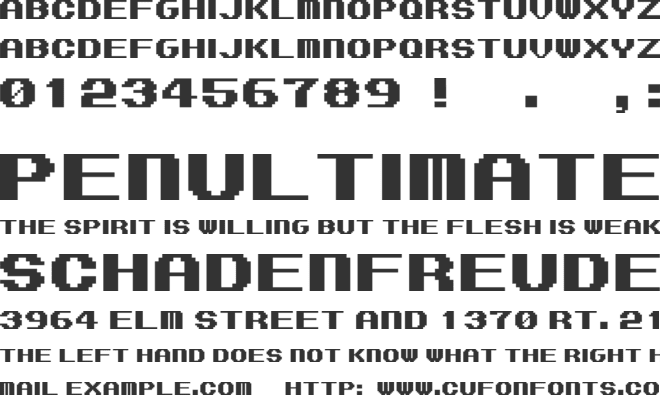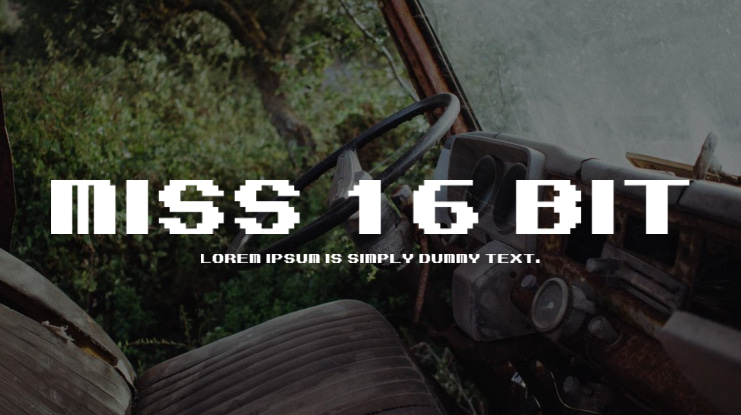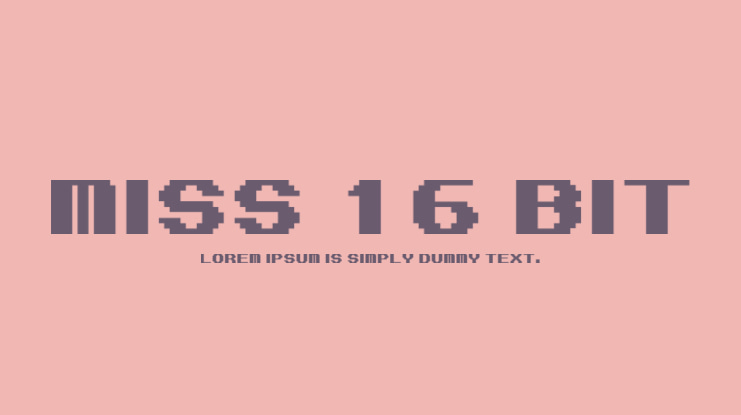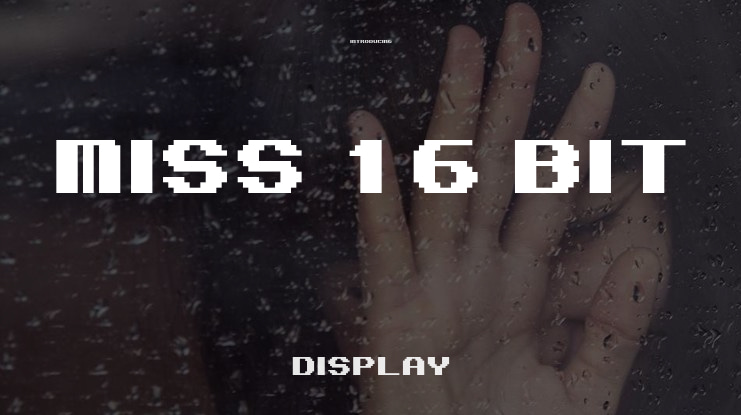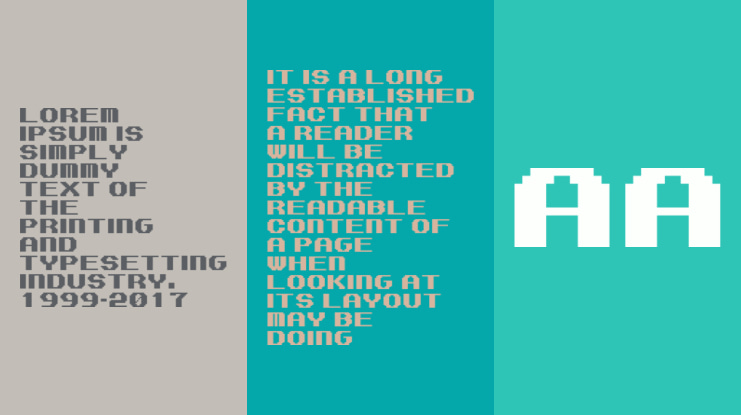
Miss 16 Bit Font
Miss 16 Bit is a new videogame-styled display pixel font. It was originally created in 2020, but it had never been uploaded to the internet due to my old computer broken down. Best at 14 points and multiples of.